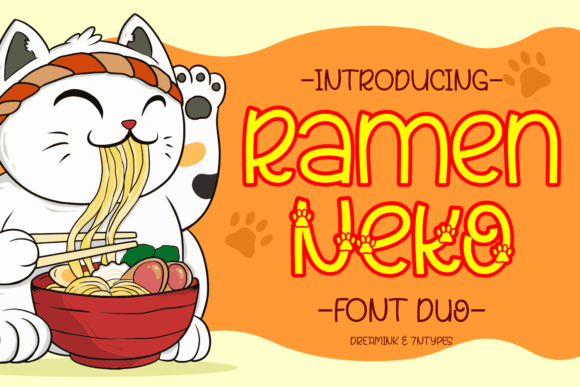
Introducing Ramen Neko Font - The Purrfect Touch for Your Designs!
Step into a world of whimsy and delight with Ramen Neko Font, a captivating handwritten font family that will transform your designs into masterpieces. Experience the magic of two distinct styles that work in harmony, each stroke imbued with personality and charm.
With Ramen Neko Font, you'll embark on a creative journey where imagination knows no bounds. Inspired by the adorable felines that grace our lives, this font family is a treasure trove of cat-themed characters that will add a touch of playfulness and charm to all your projects.
Unleash your creativity and weave enchanting tales with Ramen Neko Font. Design eye-catching logos that purr with personality, create unique branding materials that leave a lasting impression, or craft heartwarming invitations that will make hearts flutter. Let your designs bloom with a unique charm that speaks volumes.
Ramen Neko Font is meticulously crafted to provide you with unmatched versatility. Whether you're a seasoned designer seeking to elevate your work or a creative enthusiast looking to make a statement, this font family is your perfect companion. Its playful nature blends seamlessly with sophistication, making it suitable for a wide array of projects.
Join the ranks of creative visionaries who have embraced Ramen Neko Font's magic. Let your designs take center stage, captivating audiences with their captivating charm. Experience the joy of creating with a font family that feels like a warm embrace, leaving a lasting impression on all who encounter it.